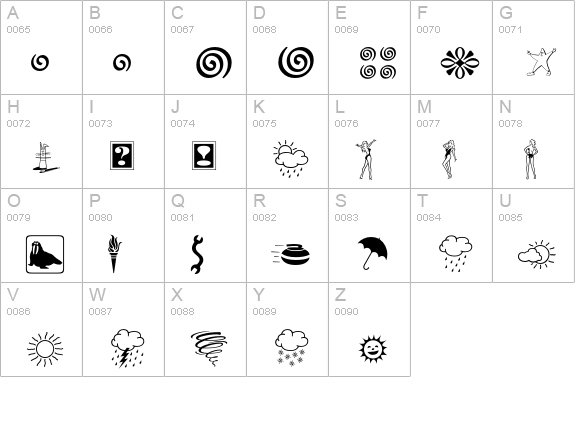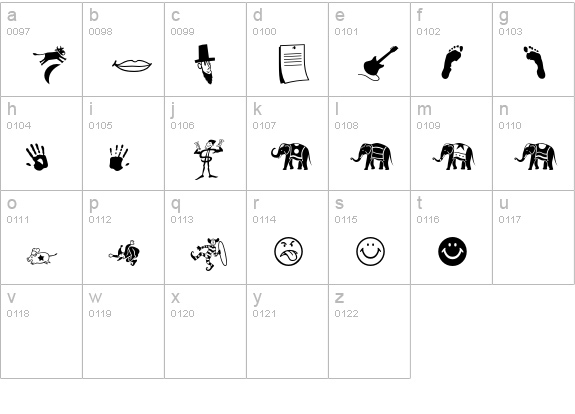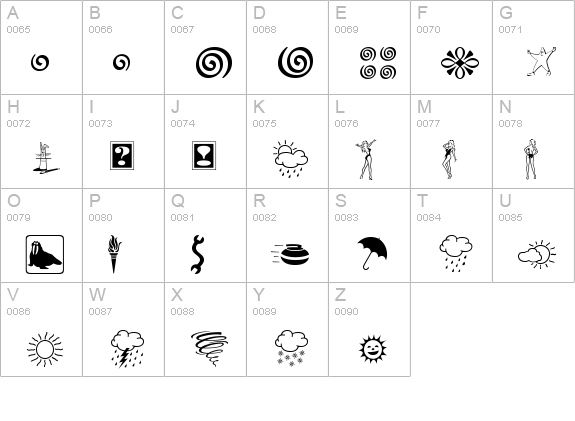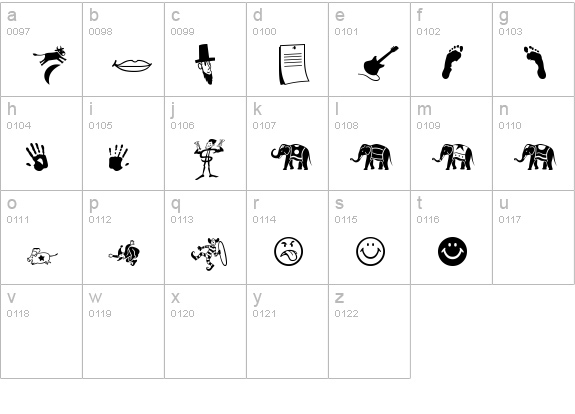
Introducing Bits Pics font, a charming and playful typeface that is perfect for adding a touch of whimsy to your creative projects. With its quirky design and unique character shapes, Bits Pics font is sure to make a statement and stand out from the crowd. Whether you're working on a fun poster, a children's book, or a social media graphic, this font will bring a sense of fun and creativity to your designs. What's even better is that Bits Pics font is available for free download at FontsMarket.com. That's right, you can easily access this delightful font and start using it in your projects right away. So why wait? Add a touch of playfulness to your designs with Bits Pics font today!